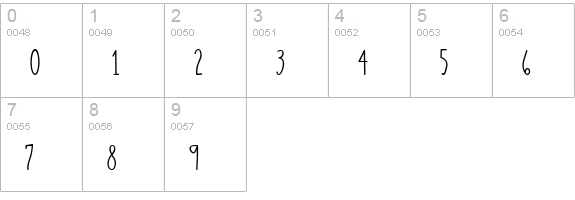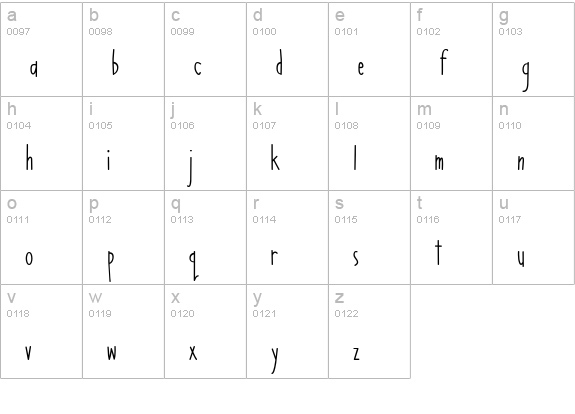
Introducing CK Slender font - a sleek and modern typeface that effortlessly combines elegance with readability. This sophisticated font features slender letterforms that exude a sense of sophistication and style, making it perfect for a wide range of design projects. CK Slender is meticulously crafted to ensure optimal legibility, making it ideal for both print and digital applications. What's even better is that CK Slender is available for free download at FontsMarket.com! That's right, you can easily add this stunning font to your collection without any cost. With its timeless appeal and versatility, CK Slender is sure to elevate your designs and leave a lasting impression. Don't miss out on the opportunity to enhance your projects with this exceptional typeface - download CK Slender today and bring your creative vision to life!